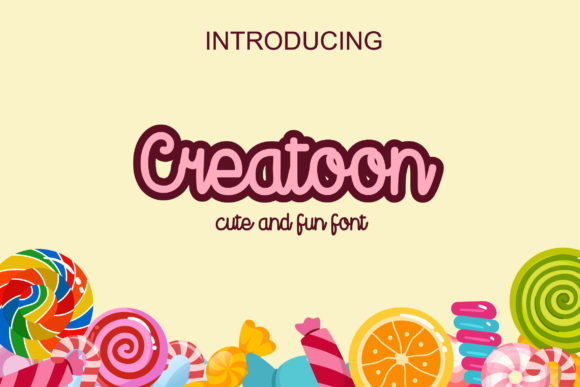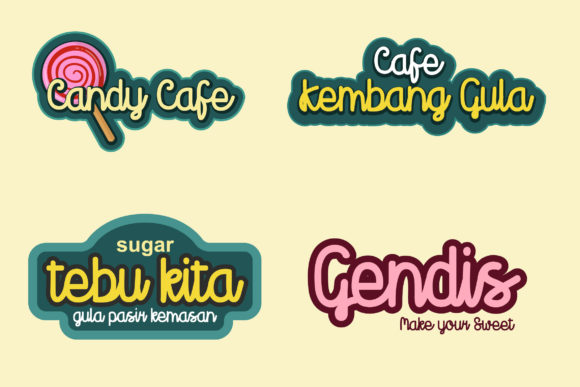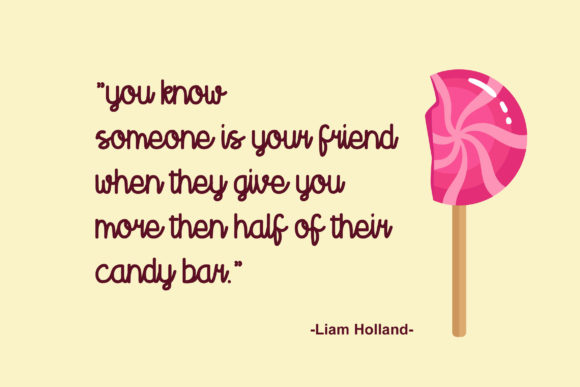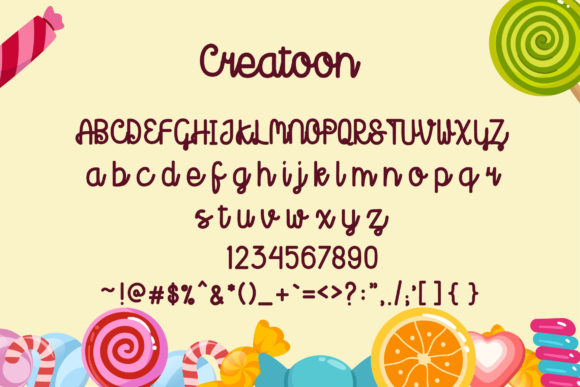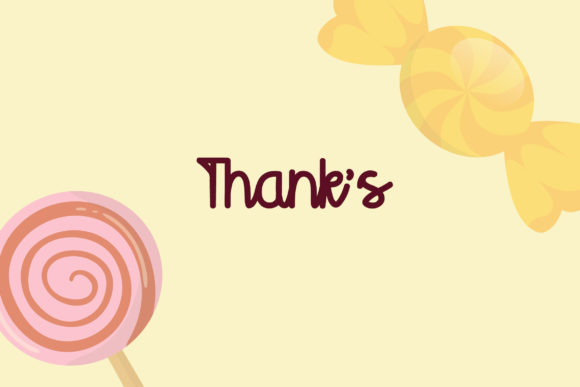
Creatoon Font
About Creatoon Font
The Creatoon is a cute font. Its fun letters will give your designs a playful touch.
It looks pretty cool in headlines, logos, quotes, poster, t-shirt and much more.